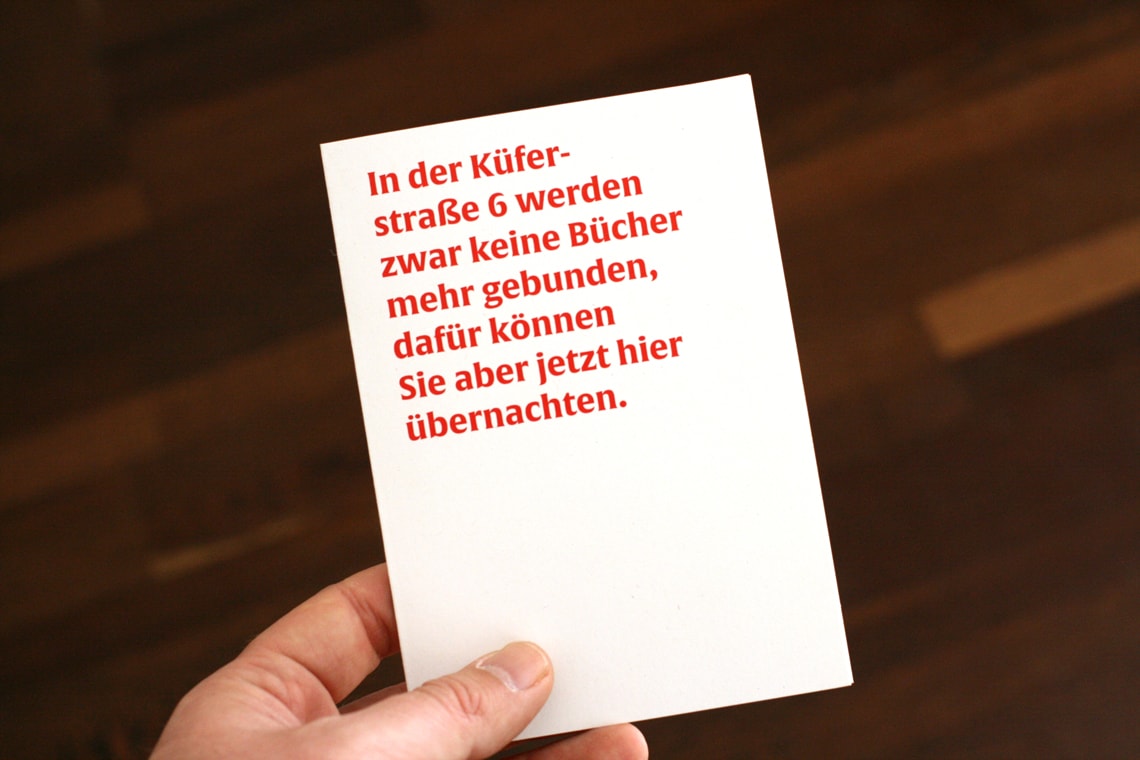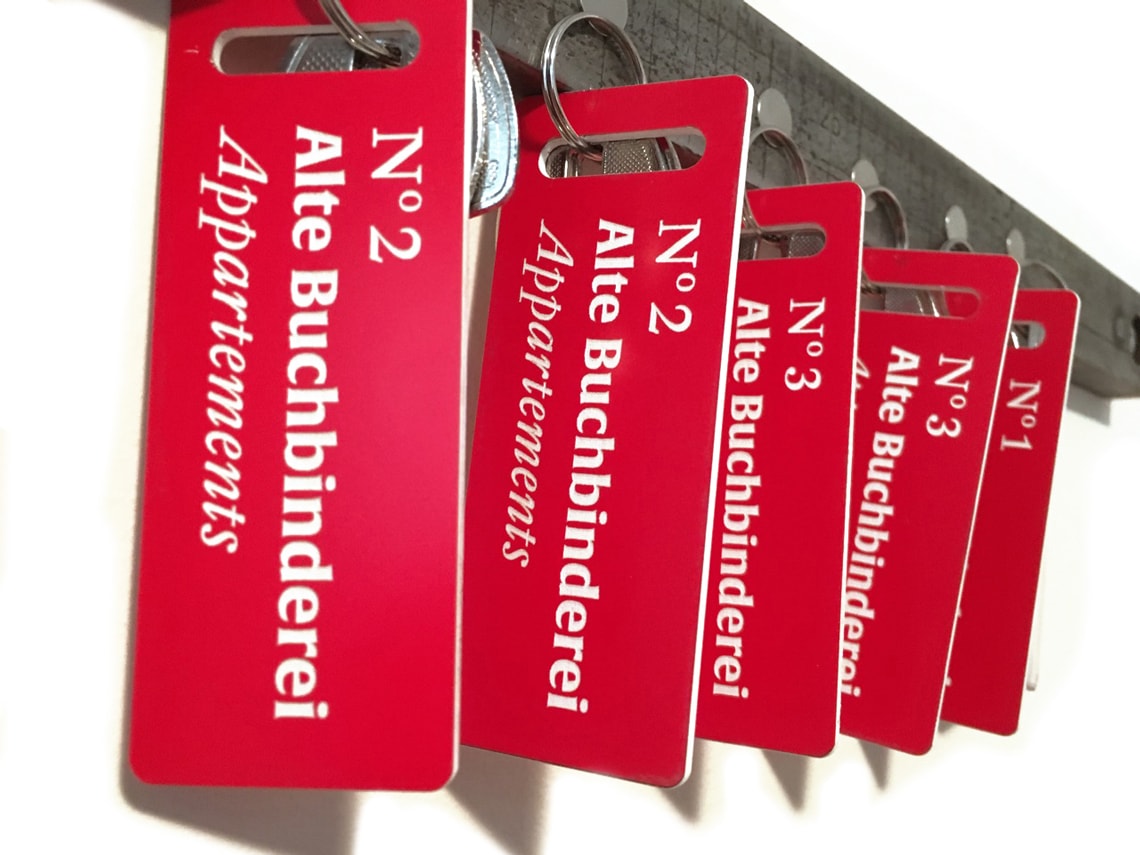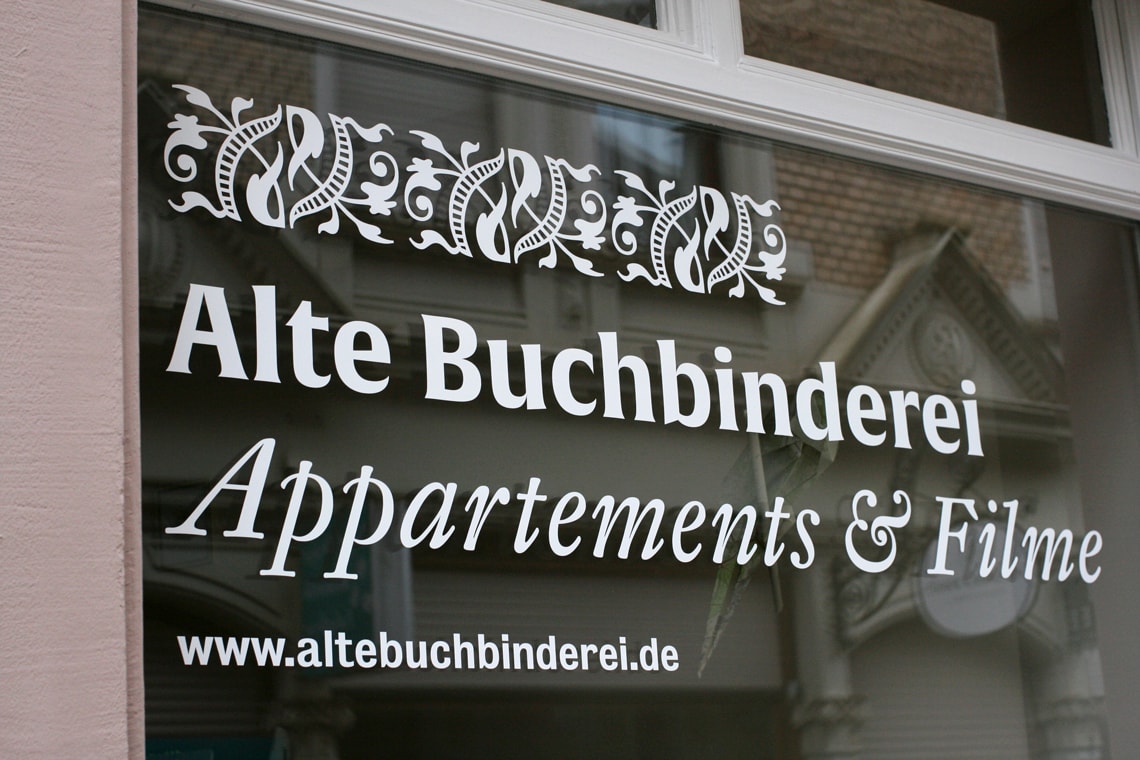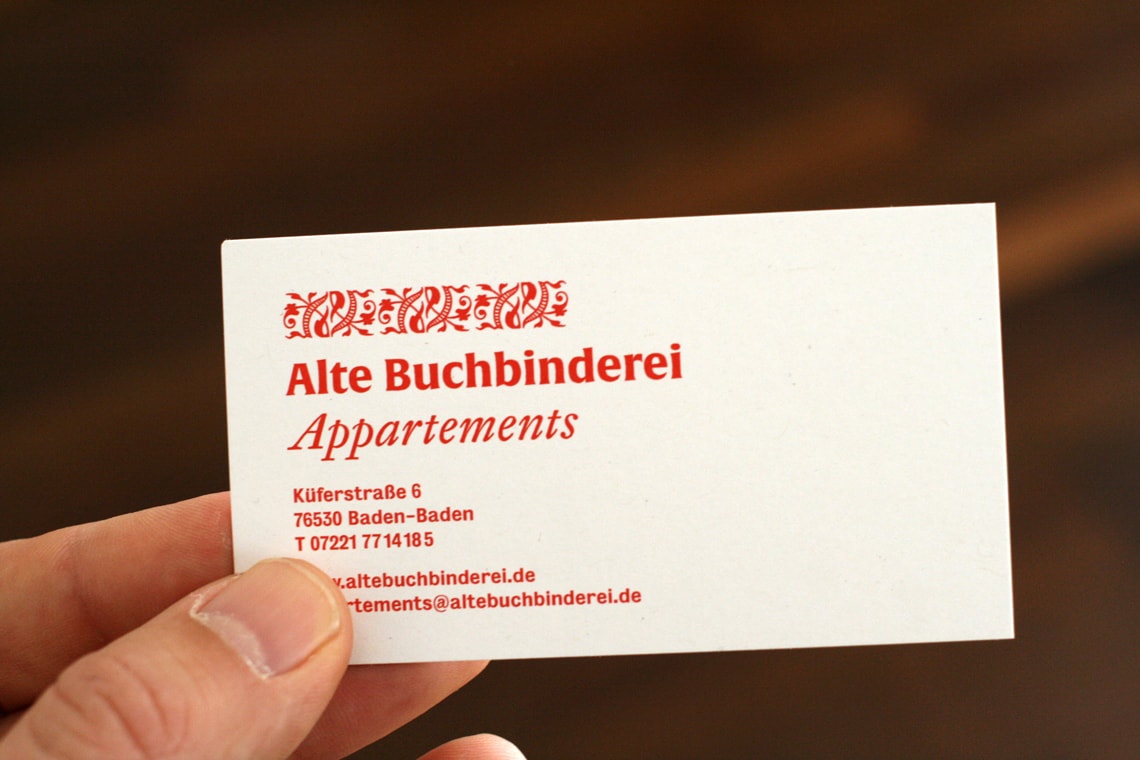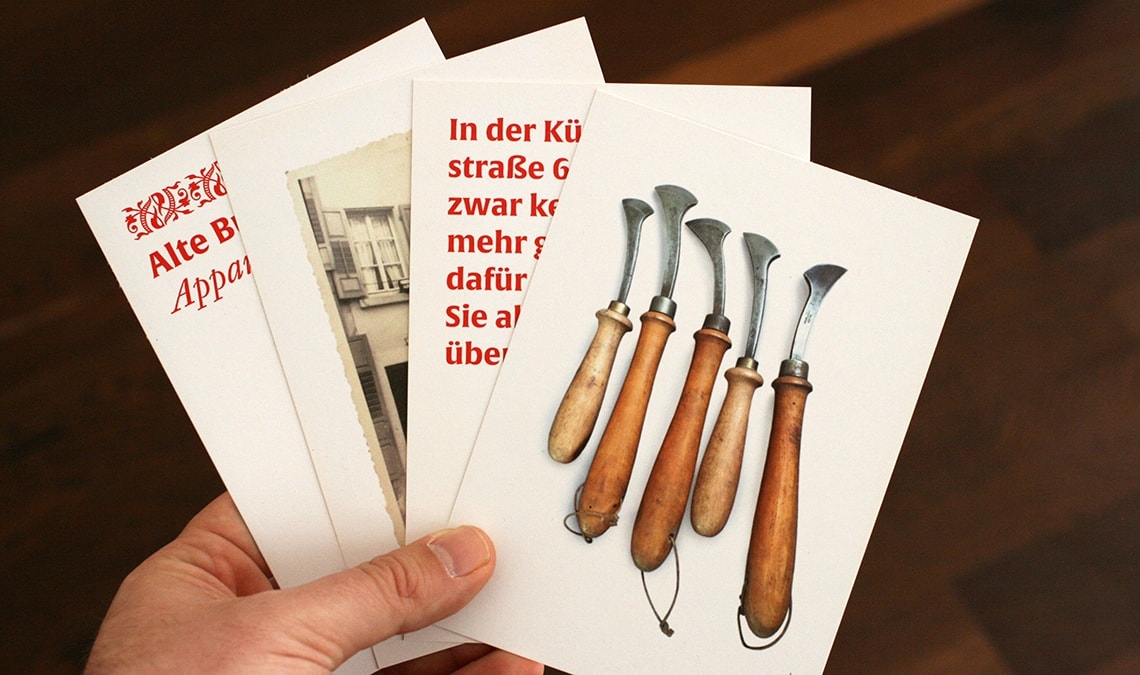
Alte Buchbinderei
Alverata, designed by Gerard Unger, has been used in the identity of Alte Buchbinderei, a small hotel based in Baden-Baden.
Alverata, Gerard Unger’s contemporary vision of Europe’s Romanesque inscriptions, has been used in the identity of the small apartment-hotel Alte Buchbinderei (Baden-Baden, Germany). The visual identity, designed by Jérôme Knebusch, was created to match the spirit of the hotel, located in a former book binding workshop. In this project Alverata ‘gives a solid handcrafted impression’.